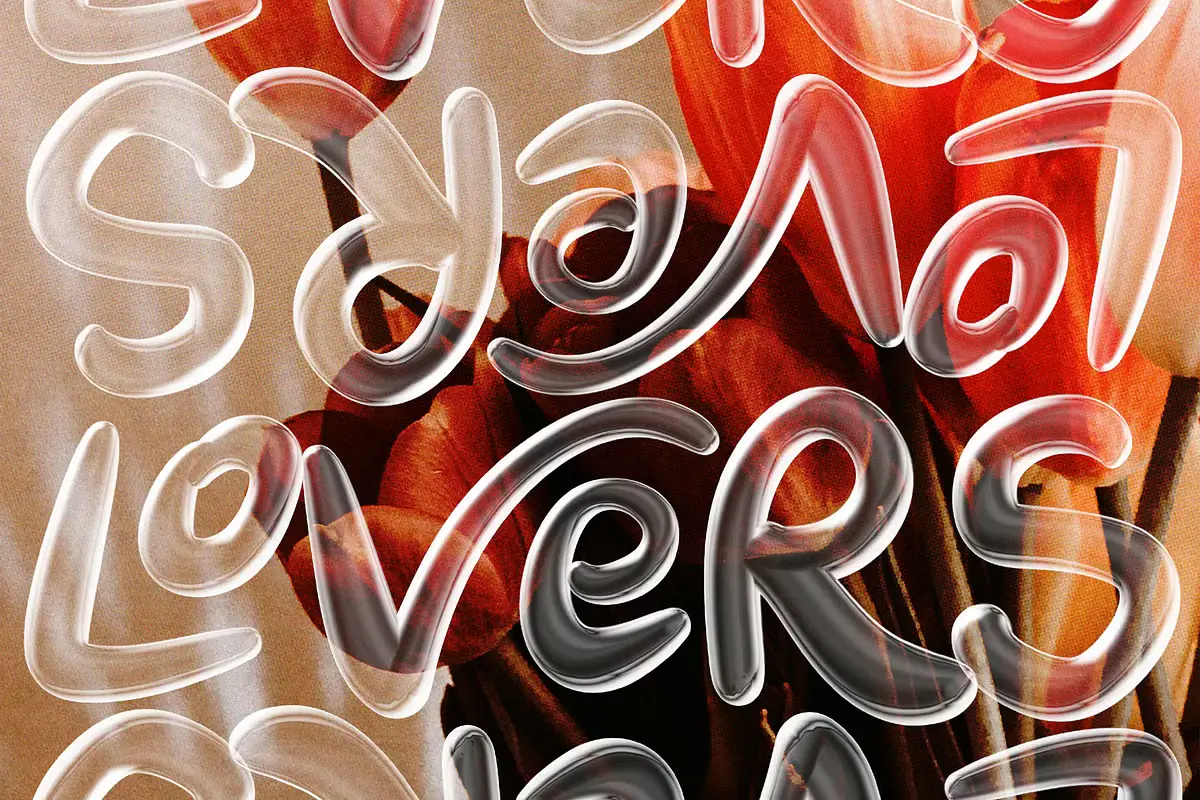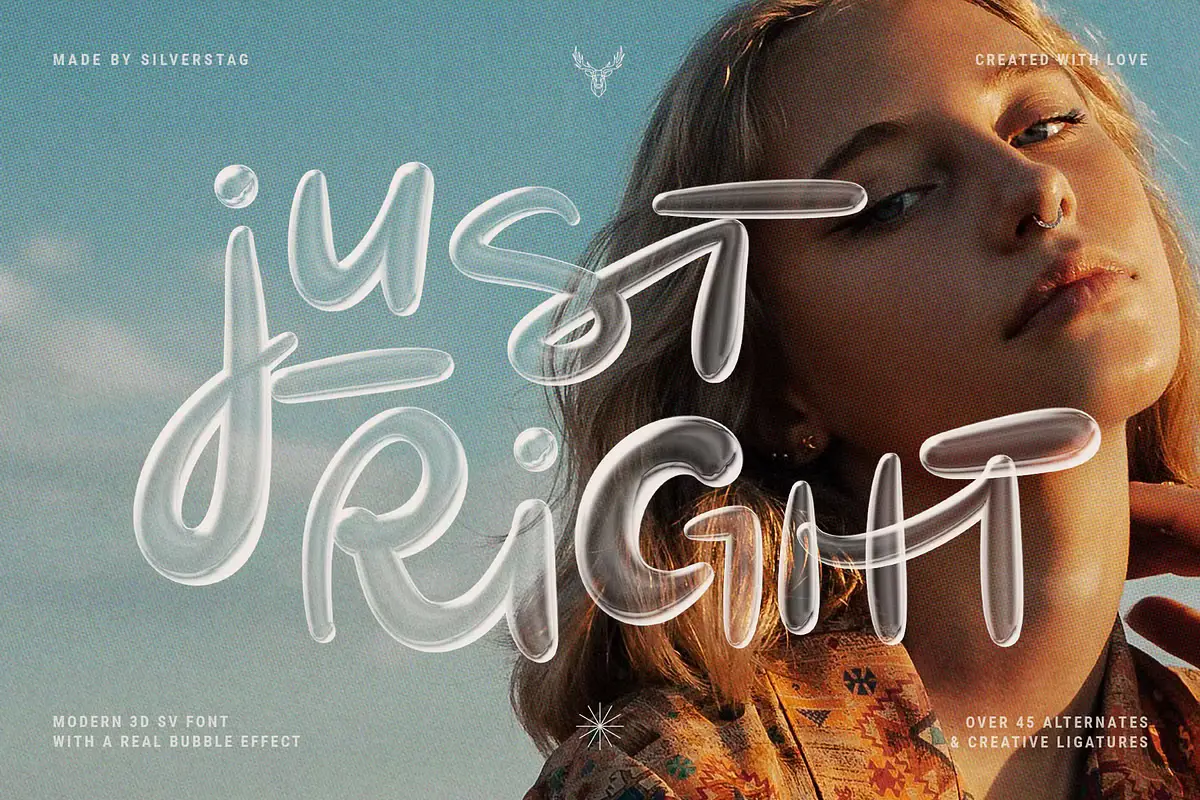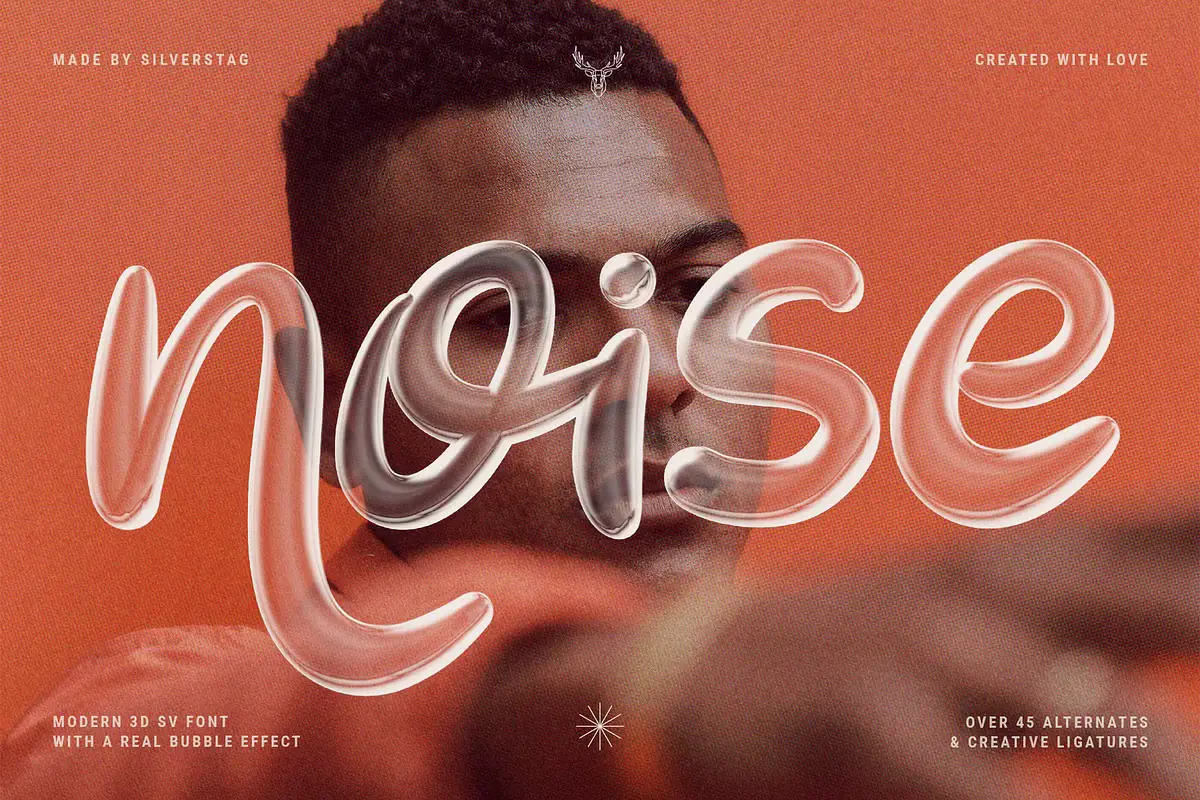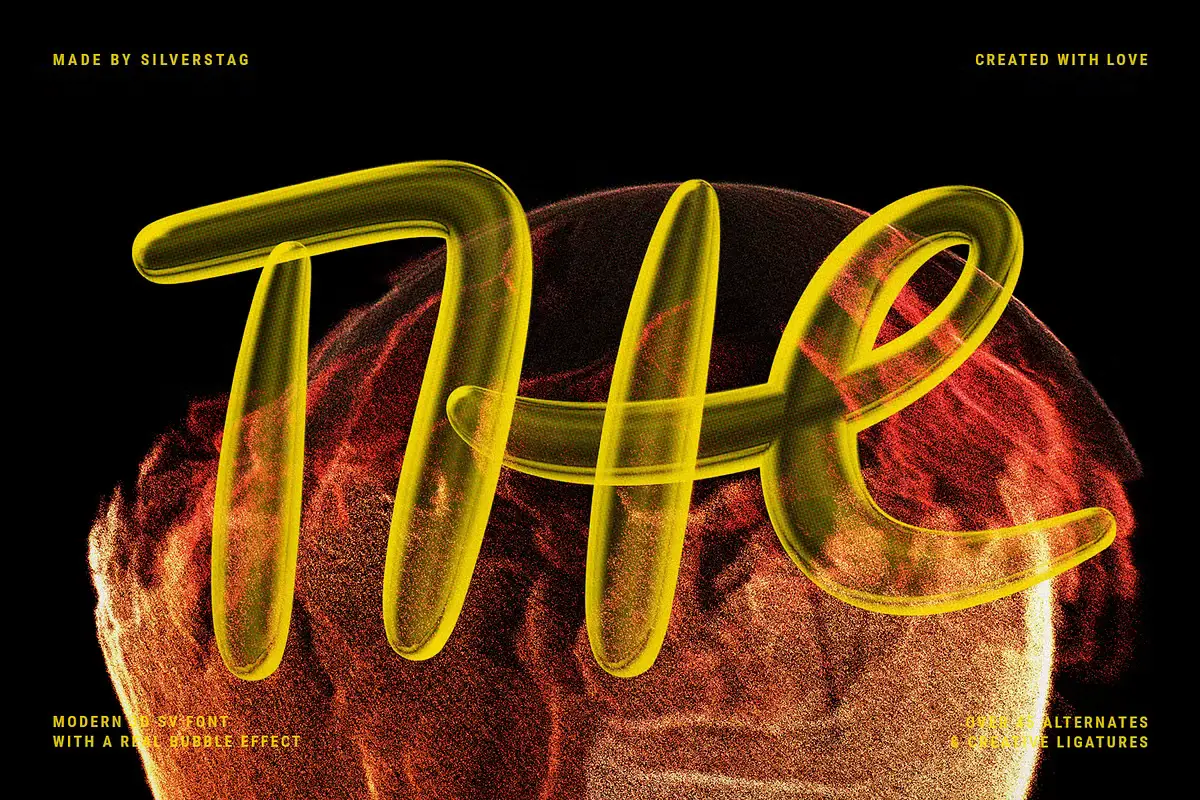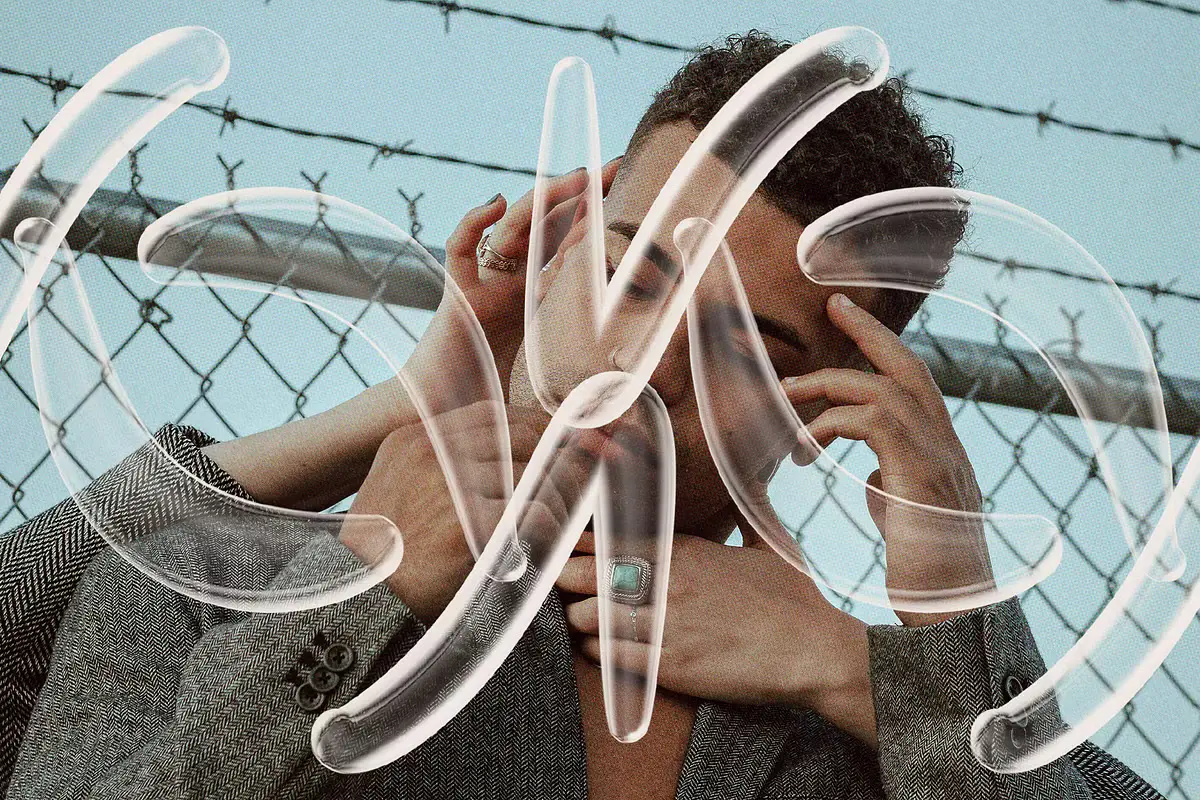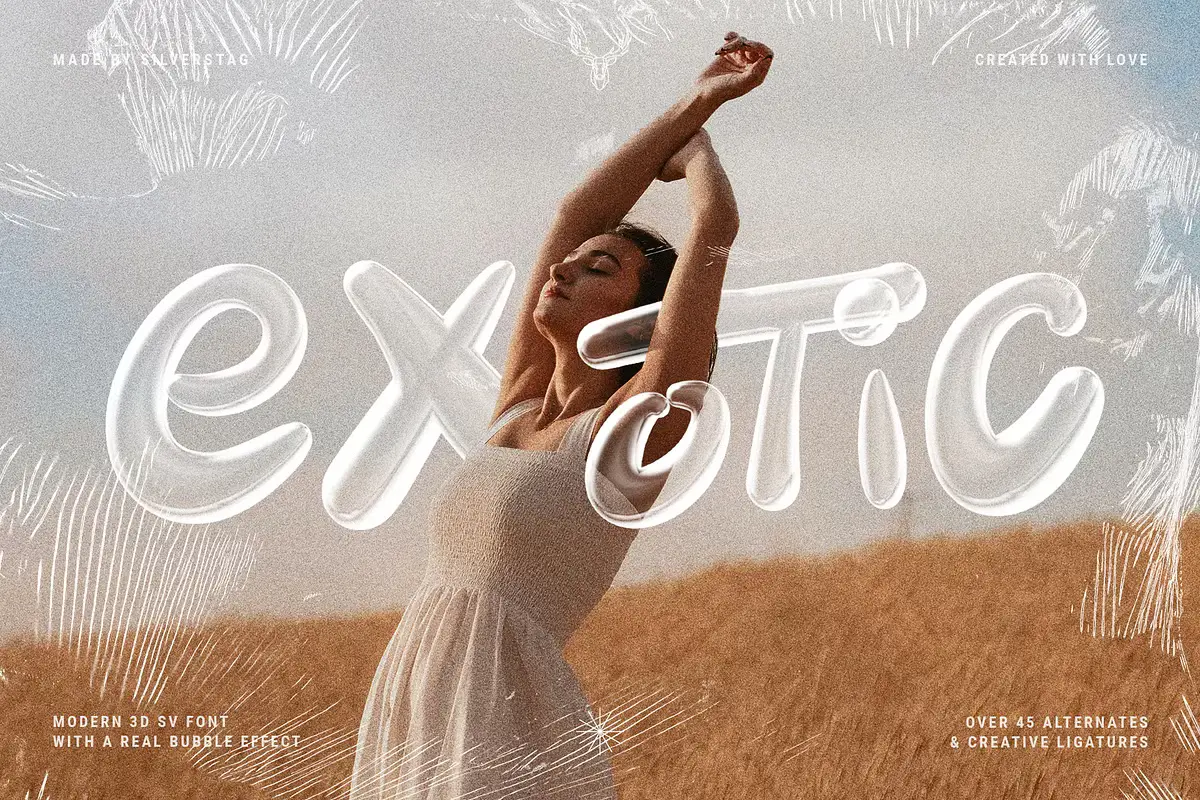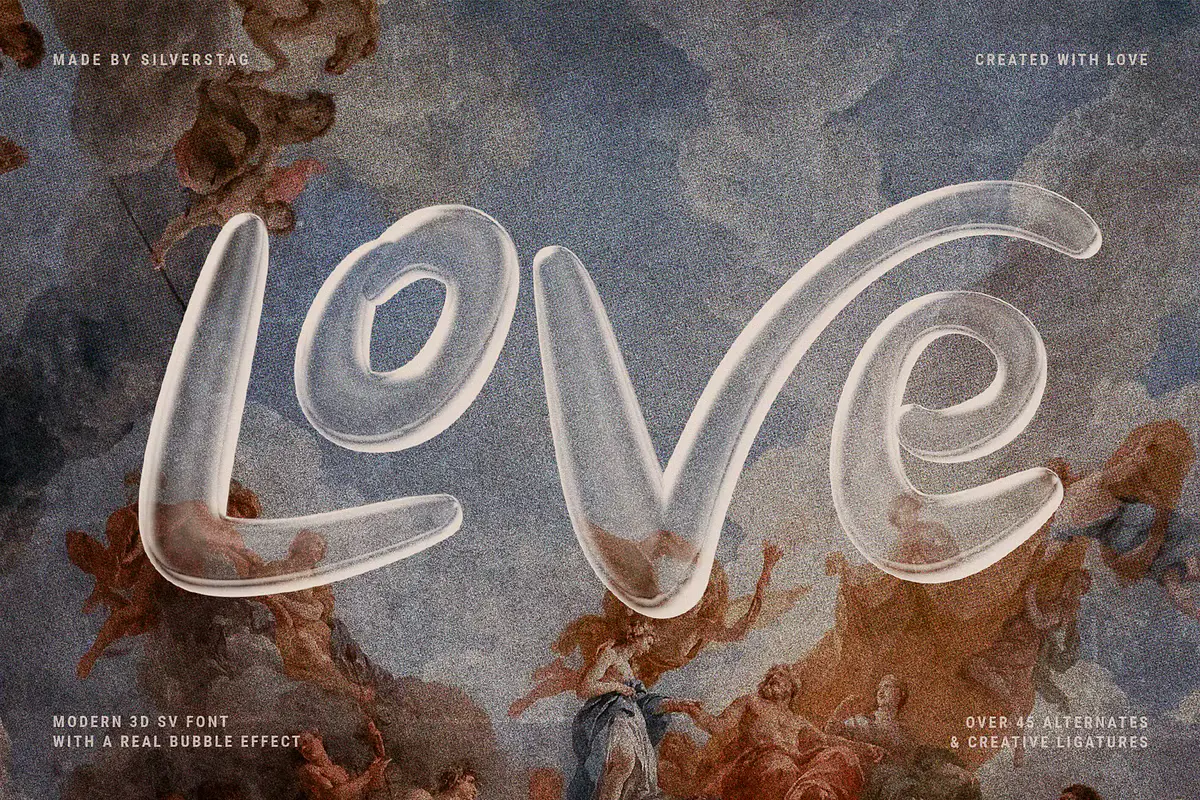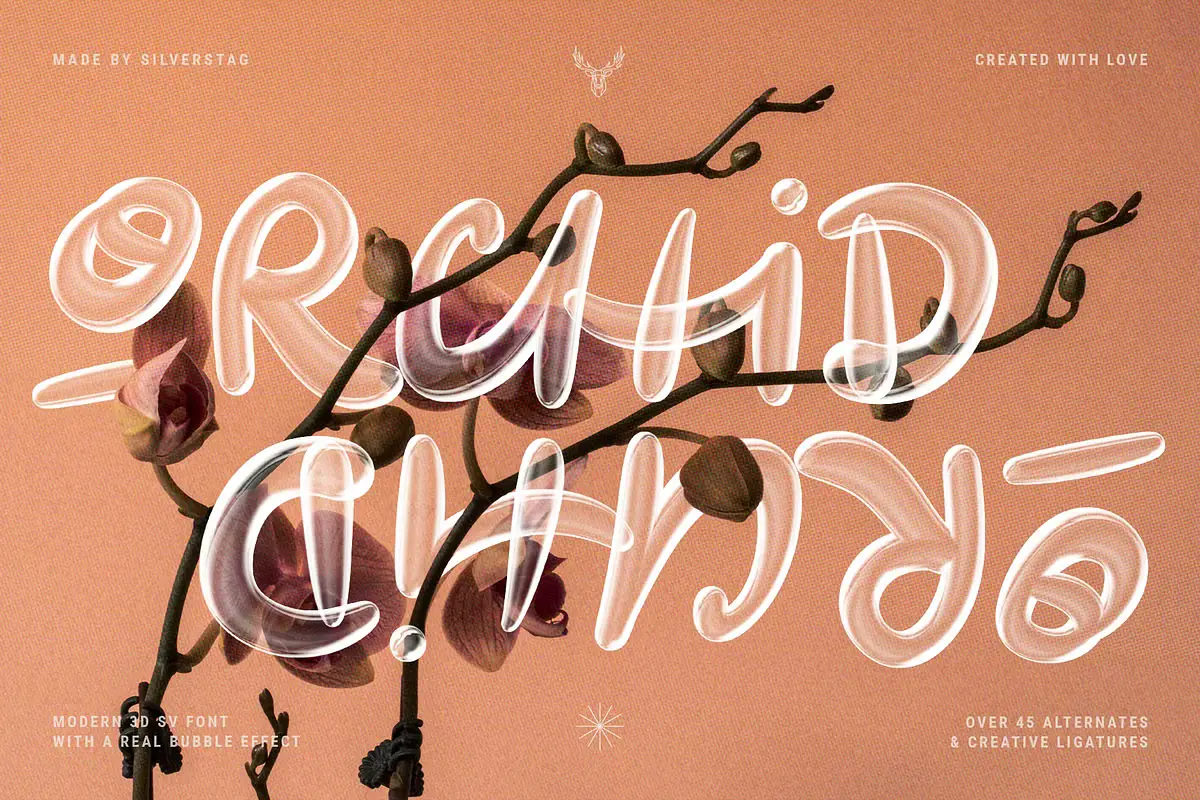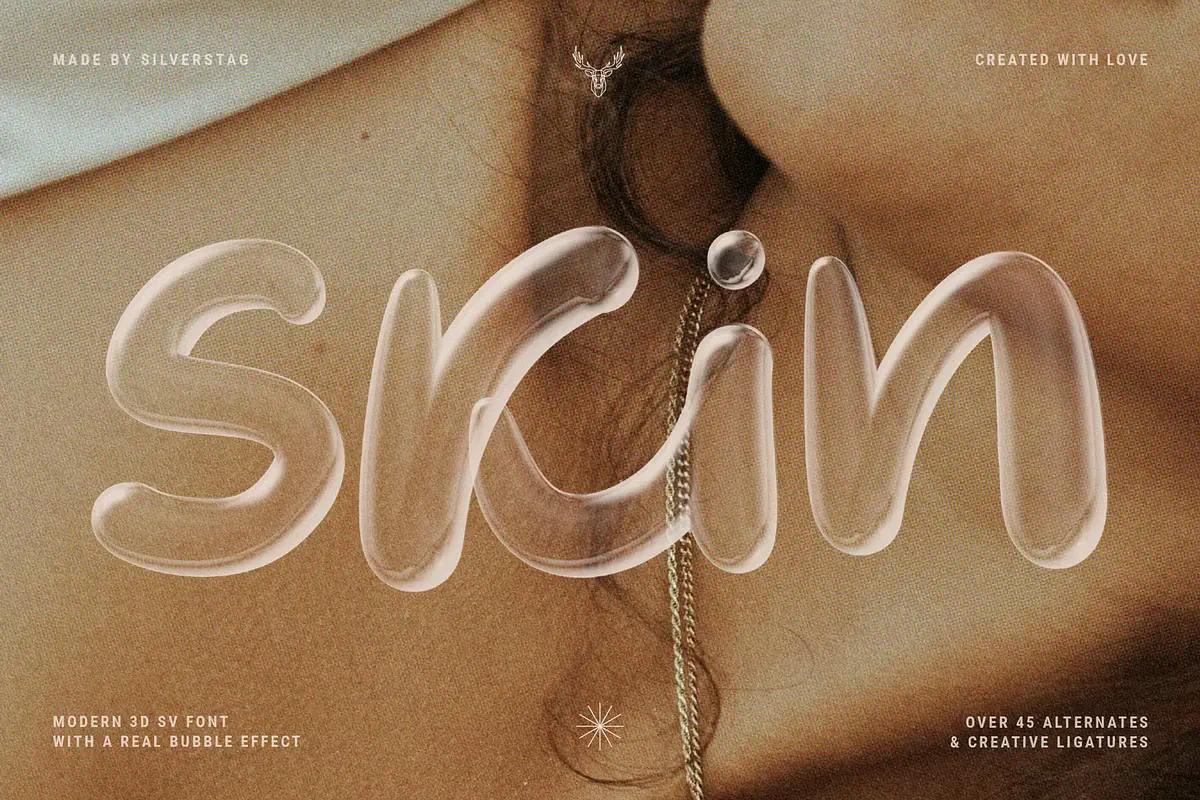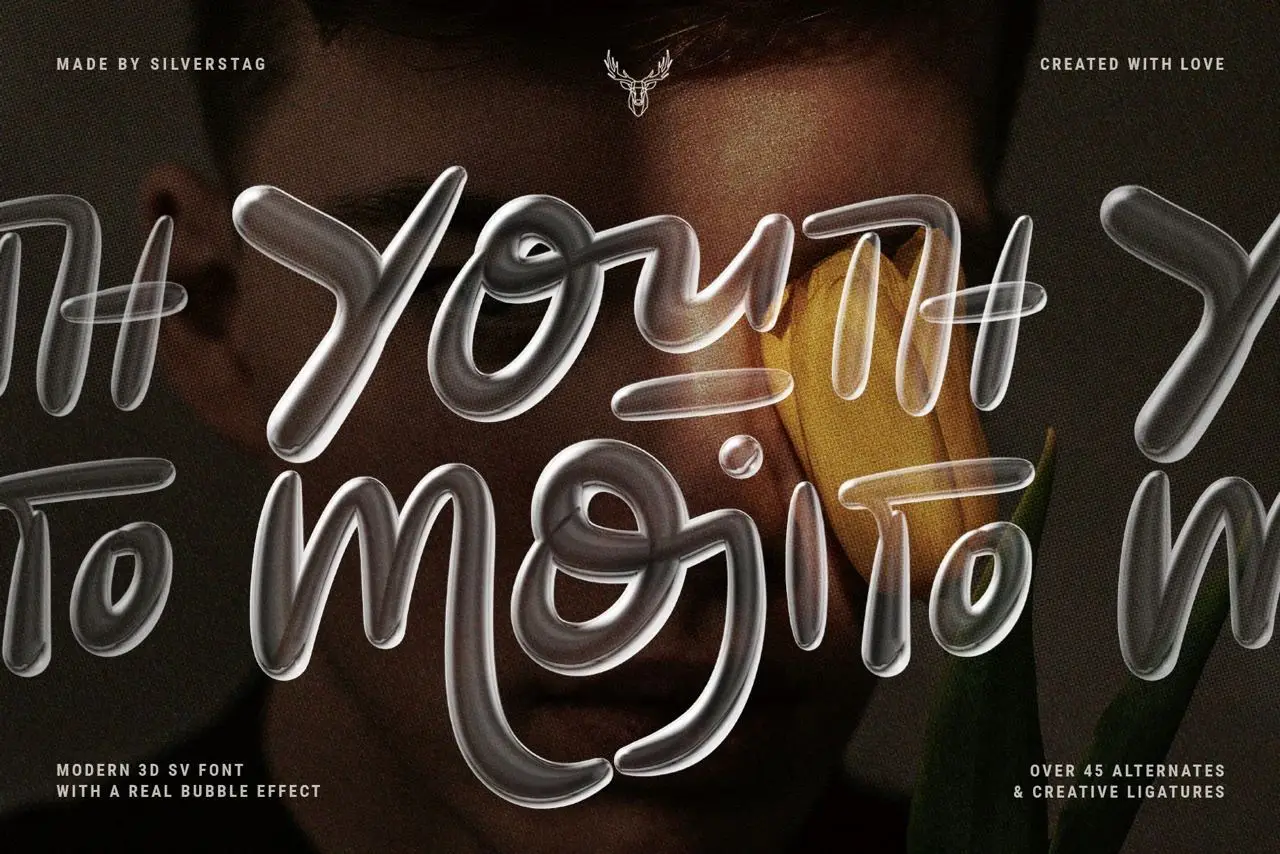
YOUTH MOJITO – A 3D Bubbly SVG Font
Are you ready to transform your typography with a fresh and playful style? Introducing YOUTH MOJITO, a unique SVG font that boasts a bubbly aesthetic, perfect for modern posters, graphics, presentations, websites, and logos. This font has been crafted with care to ensure it adds a distinctive touch to your creative projects.
YOUTH MOJITO is designed for those looking to make a statement with their typography. Its bubbly look is not only eye-catching but also versatile, making it suitable for a variety of design applications. Whether you’re a graphic designer, a content creator, or simply someone who appreciates beautiful fonts, this typeface will elevate your work.
- ✅ Unique Bubbly Design → Stand out with a playful and modern font style.
- ✅ Versatile Usage → Ideal for posters, logos, websites, and more.
YOUTH MOJITO is not just another font; it’s a creative tool that empowers you to express your unique style. With its hand-painted look, this font is perfect for adding a personal touch to your designs. Plus, by subscribing to our newsletter, you gain access to exclusive free fonts, enhancing your design toolkit even further. Join a community of creators who trust and love this font for their projects.